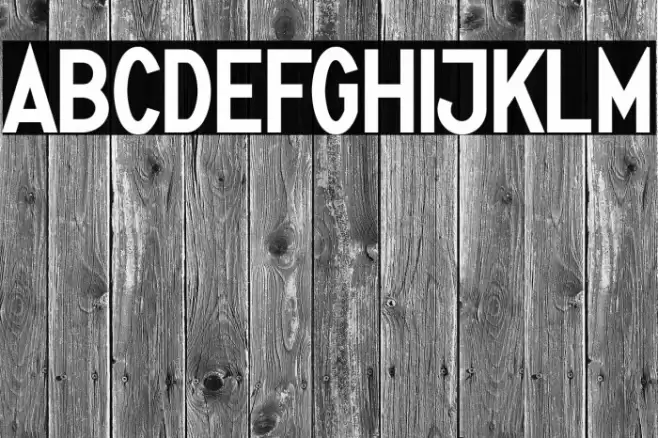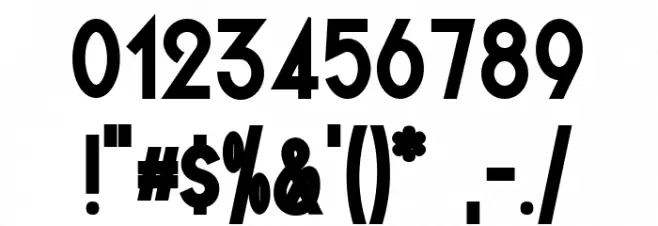
Quirkus Bold Font
Quirkus Bold Description
This font features a bold and playful design with a modern twist. The characters are well-rounded and slightly condensed, giving it a unique and quirky appearance. The uppercase letters are tall and assertive, while the lowercase letters maintain a consistent and harmonious flow. The numerals are clear and easy to read, making them suitable for various applications. Special characters are designed with the same boldness, ensuring consistency throughout. The overall style is both contemporary and fun, making it ideal for projects that require a touch of personality.
A bold, playful font with a modern and quirky style from Uncategorized fonts.
- Proposed Projects: Ideal for branding, posters, headlines, and any project that needs a bold and playful touch.